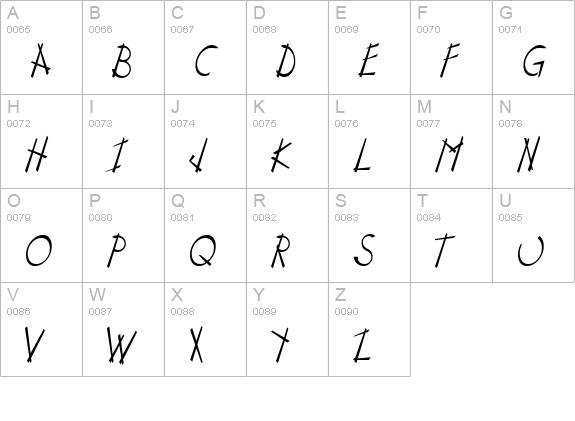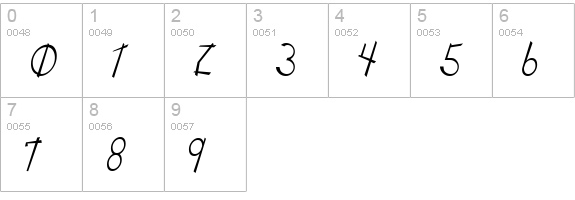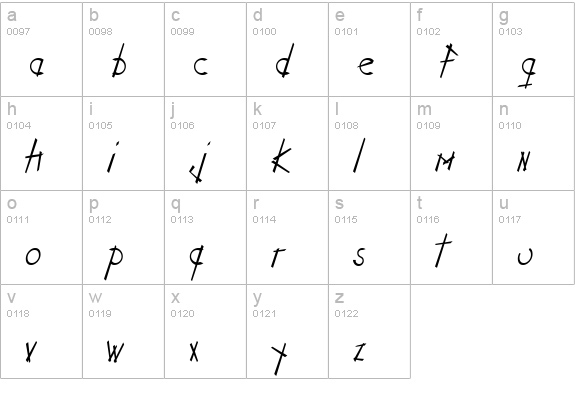
Stix n Stonz Font Details
Stix n Stonz font is a unique and creative typeface that combines the elegance of traditional typography with a modern twist. Its sleek and stylish design is perfect for adding a touch of sophistication to any project. The font features clean lines and sharp edges, giving it a contemporary feel that is sure to make your text stand out. What sets Stix n Stonz font apart is its versatility – it can be used for a wide range of design projects, from branding and packaging to invitations and social media graphics. Whether you're looking to create a professional logo or design eye-catching posters, this font has got you covered. The best part? Stix n Stonz font is available for free download at FontsMarket.com. Simply visit the website and start using this stunning typeface in your designs today. Don't miss out on the opportunity to enhance your projects with the elegance and sophistication of Stix n Stonz font.